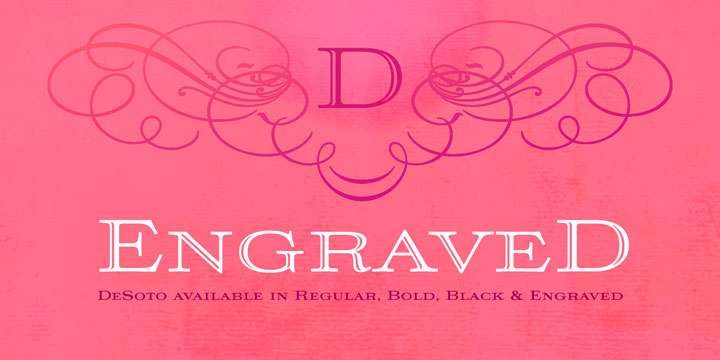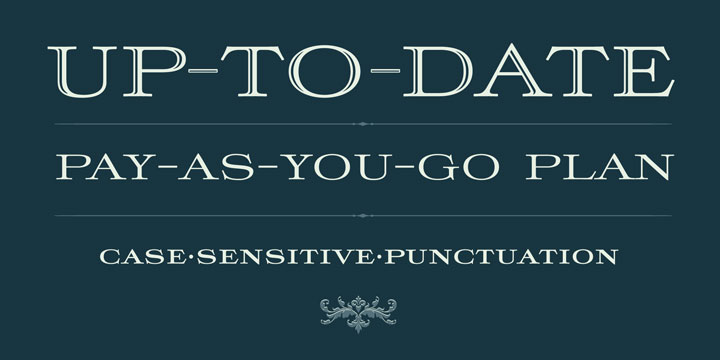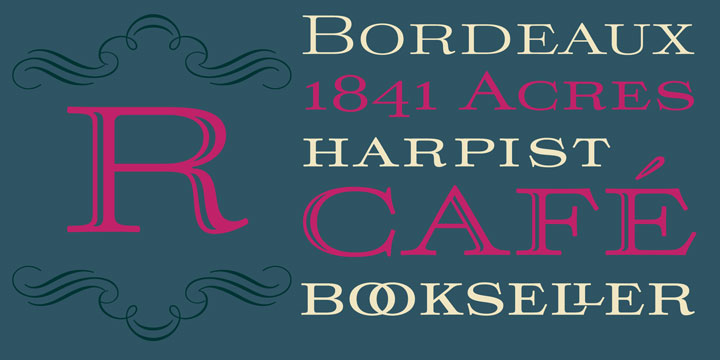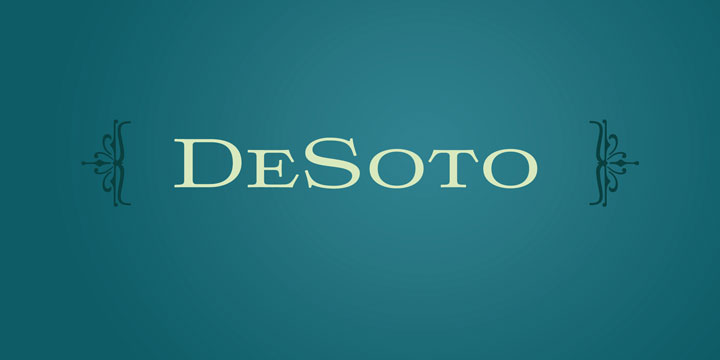
DeSoto Family (4 fonts)
From Stephen Rapp
DeSoto's extended width characters show a hint of old school aesthetics. It comes in four styles all featuring a balance of caps and smallcaps. As a titling face, DeSoto will work in all kinds of setting; well... maybe not death metal flyers, but who knows? Taking advantage of OpenType programming, DeSoto features include alternate characters, fractions, oldstyle figures, ligatures, case-sensitive punctuation, ornaments and swashes, and Central European language support.
All features, including ornaments, are included with each weight, taking full advantage of the OpenType format.